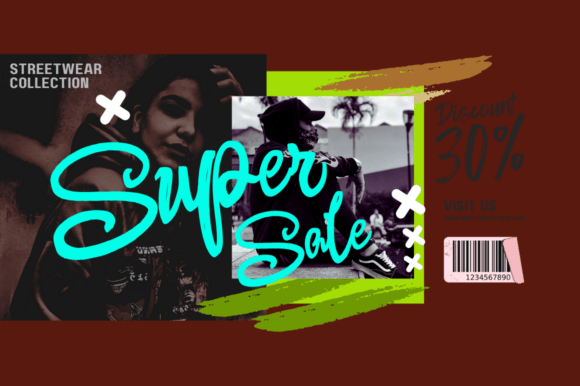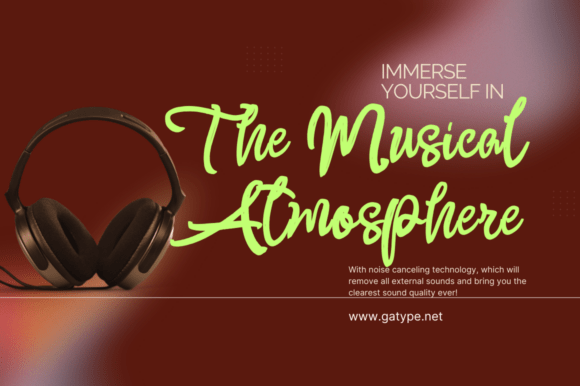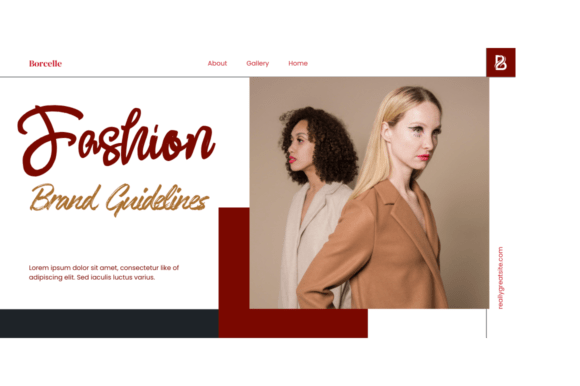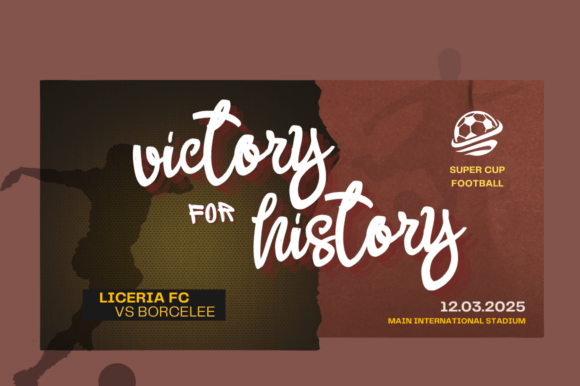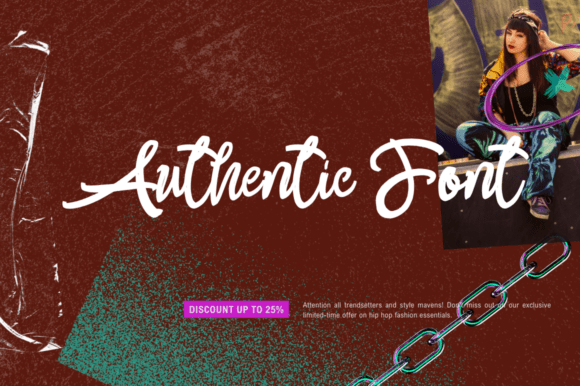
Introduction to Author Shitan Font
Author Shitan is an elegant modern script font that flows smoothly and elegantly in any design you create.
This font is a must-have for your modern script collection It’s a great choice for logos, album covers, quotes, greeting cards, book covers, wedding designs, social media posts, and more.
Key Features of Author Shitan Font
Why Choose Author Shitan Font?
Author Shitan Font offers exceptional quality and versatility, making it a valuable addition to your design toolkit. Whether you’re creating for personal projects or commercial use, Author Shitan Font delivers professional results.